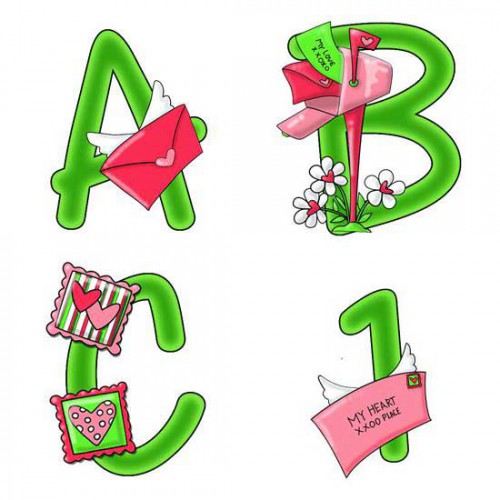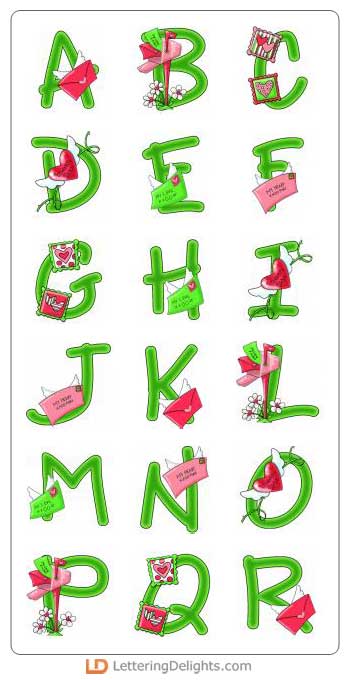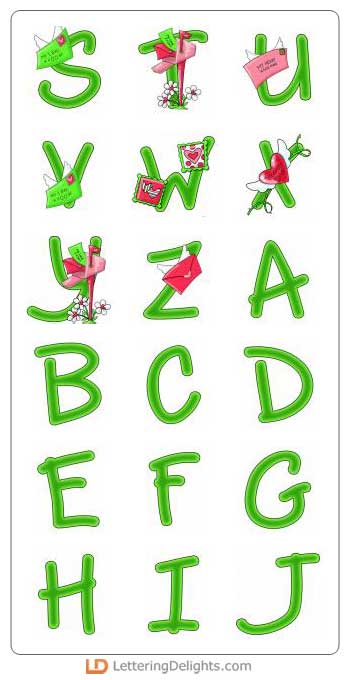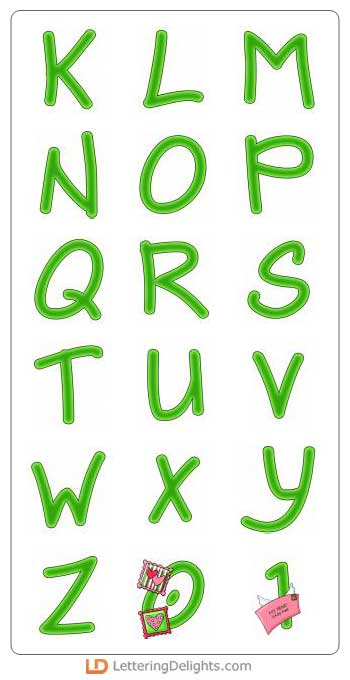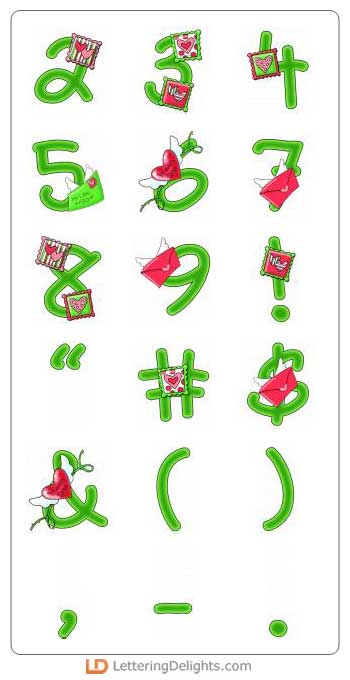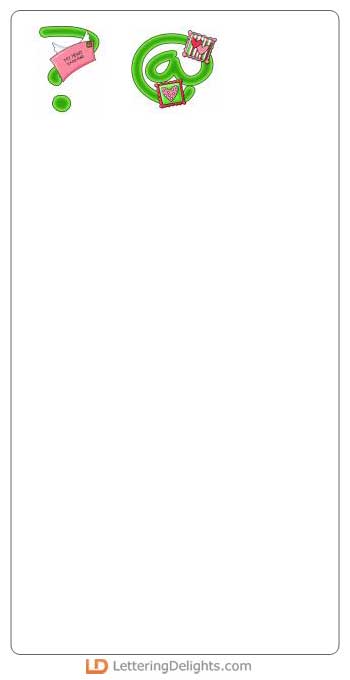
It is so fun to get a love letter in the mail! Write letters to your heart's content with this alphabet. Try it on February calendars or newsletters, valentine scrapbook layouts, or other lettering projects.